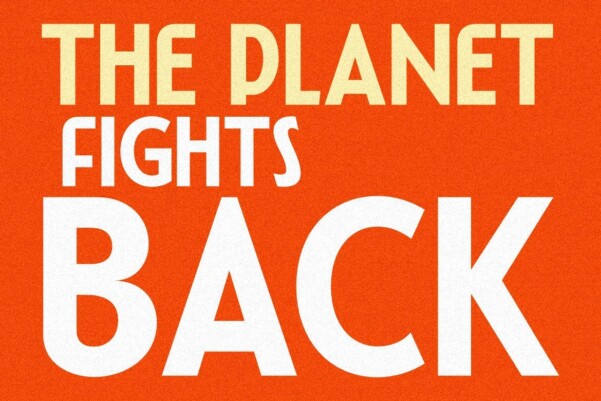
Galerian Font
Galerian Font is a very well packaged, firm and simple modern Sanserif font suitable for display fonts, web, brochures, flayers and others.